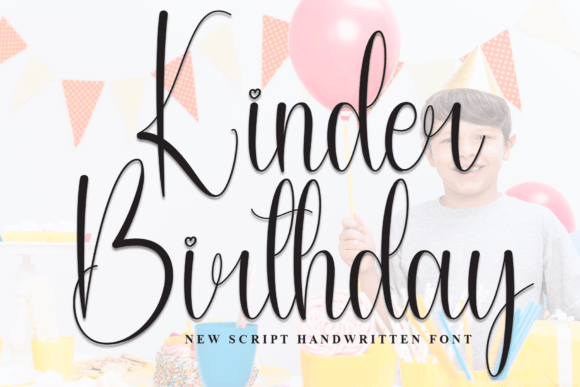
Kinder Birthday Font: The Perfect Blend of Elegance and Playfulness
The world of typography is vast and diverse, with numerous fonts designed to cater to various needs and preferences. Among these, the Kinder Birthday font stands out for its unique blend of elegance and playfulness. This stylish handwritten script font has been gaining popularity for its ability to add a personal, charming touch to invitations, branding, and social media. In this article, we will explore the features, benefits, and uses of the Kinder Birthday font, and why it has become a favorite among designers and non-designers alike.
The Birth of Kinder Birthday Font
The Kinder Birthday font is a product of meticulous design and craftsmanship. Its creation was inspired by the need for a font that could seamlessly blend elegance with a playful touch. The designers aimed to create a font that would be versatile enough to be used in various contexts, from formal invitations to social media posts. The result is a font that exudes warmth, sophistication, and creativity.
Key Features of Kinder Birthday Font
- Handwritten Script Style: The Kinder Birthday font boasts a beautiful handwritten script style that gives it a personal and unique touch.
- Flowing Curves: One of the standout features of this font is its flowing curves, which add a natural rhythm to the text.
- Elegant and Playful: The font strikes the perfect balance between elegance and playfulness, making it suitable for a wide range of projects.
- Versatile: Whether it’s an invitation, a brand logo, or a social media post, the Kinder Birthday font can be used in various contexts.
Uses of Kinder Birthday Font
The versatility of the Kinder Birthday font makes it a valuable asset for designers and businesses. Here are some of the most popular uses of this font:
Popular Use Cases
- Invitations: The elegant and playful nature of the Kinder Birthday font makes it perfect for wedding invitations, birthday invites, and other special occasion cards.
- Branding: Businesses can use this font to create a unique and memorable brand identity that stands out from the competition.
- Social Media: The font’s friendly and approachable vibe makes it ideal for social media posts, adding a personal touch to your online presence.
- Packaging: Product packaging can benefit from the Kinder Birthday font, especially for brands that want to convey a sense of luxury and playfulness.
Benefits of Using Kinder Birthday Font
There are several benefits to using the Kinder Birthday font in your projects. Here are some of the key advantages:
Why Choose Kinder Birthday Font?
- Unique and Memorable: The font’s distinctive style ensures that your project will stand out and be remembered.
- Easy to Read: Despite its elegant and playful nature, the Kinder Birthday font remains highly legible, making it suitable for both headings and body text.
- Customizable: The font comes with a range of customization options, allowing you to tailor it to your specific needs.
- Time-Saving: With the Kinder Birthday font, you can achieve professional-looking results without spending hours on design.
Tips for Maximizing the Impact of Kinder Birthday Font
To get the most out of the Kinder Birthday font, consider the following tips:
Expert Tips
- Pair with Complementary Fonts: Combine the Kinder Birthday font with other fonts that complement its style to create visual interest.
- Use Appropriate Colors: Choose colors that match the tone of your project and the font’s elegant yet playful nature.
- Experiment with Sizes: Play around with different font sizes to create a hierarchy of information and add emphasis where needed.
- Maintain Consistency: Use the Kinder Birthday font consistently across your project to create a cohesive look.
The Kinder Birthday font is a versatile and stylish addition to any design project. Its unique blend of elegance and playfulness makes it suitable for a wide range of applications, from invitations and branding to social media and packaging. By understanding its features, benefits, and uses, you can leverage the Kinder Birthday font to create memorable and impactful designs. Whether you’re a professional designer or a DIY enthusiast, this font is sure to bring a touch of charm and sophistication to your work.